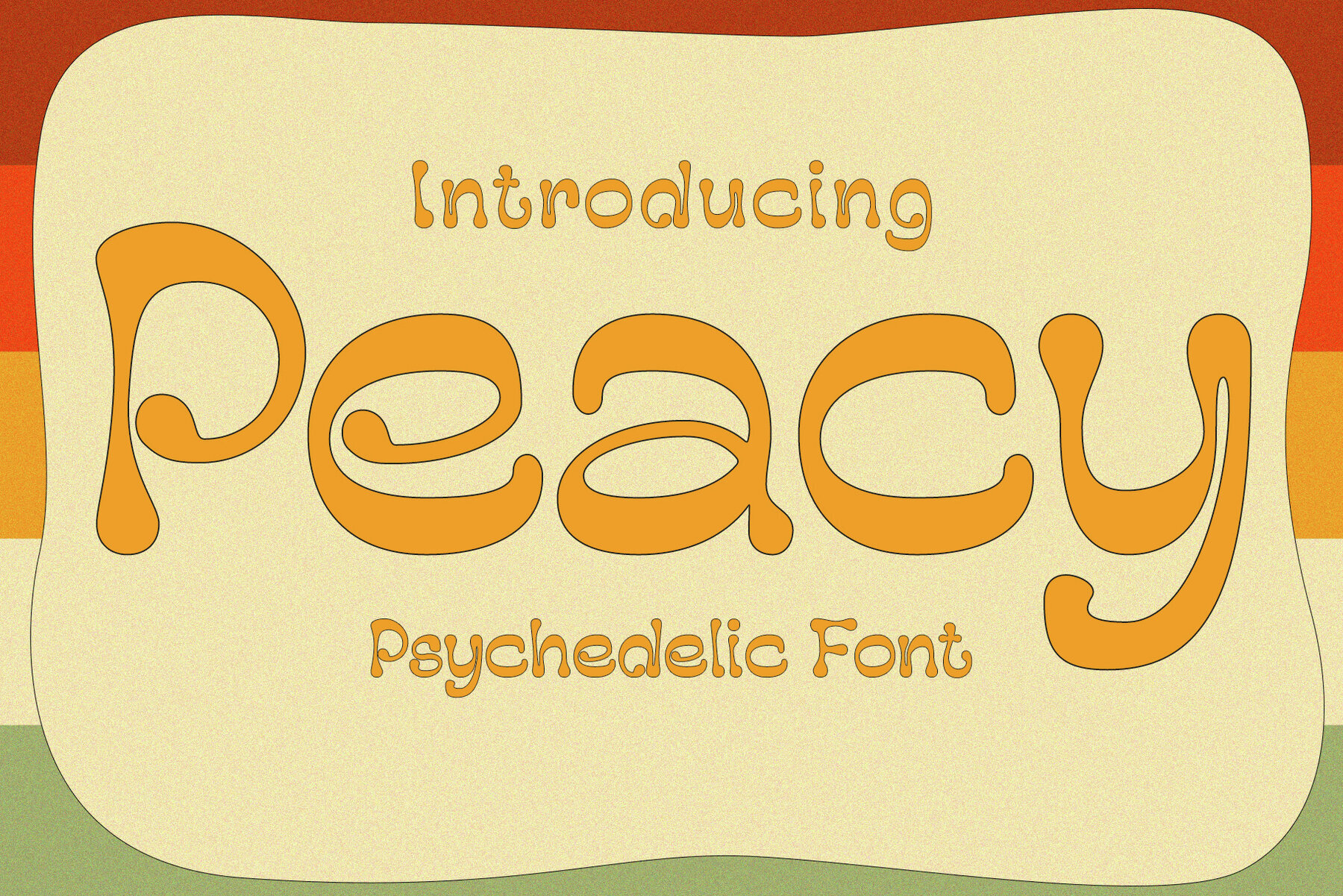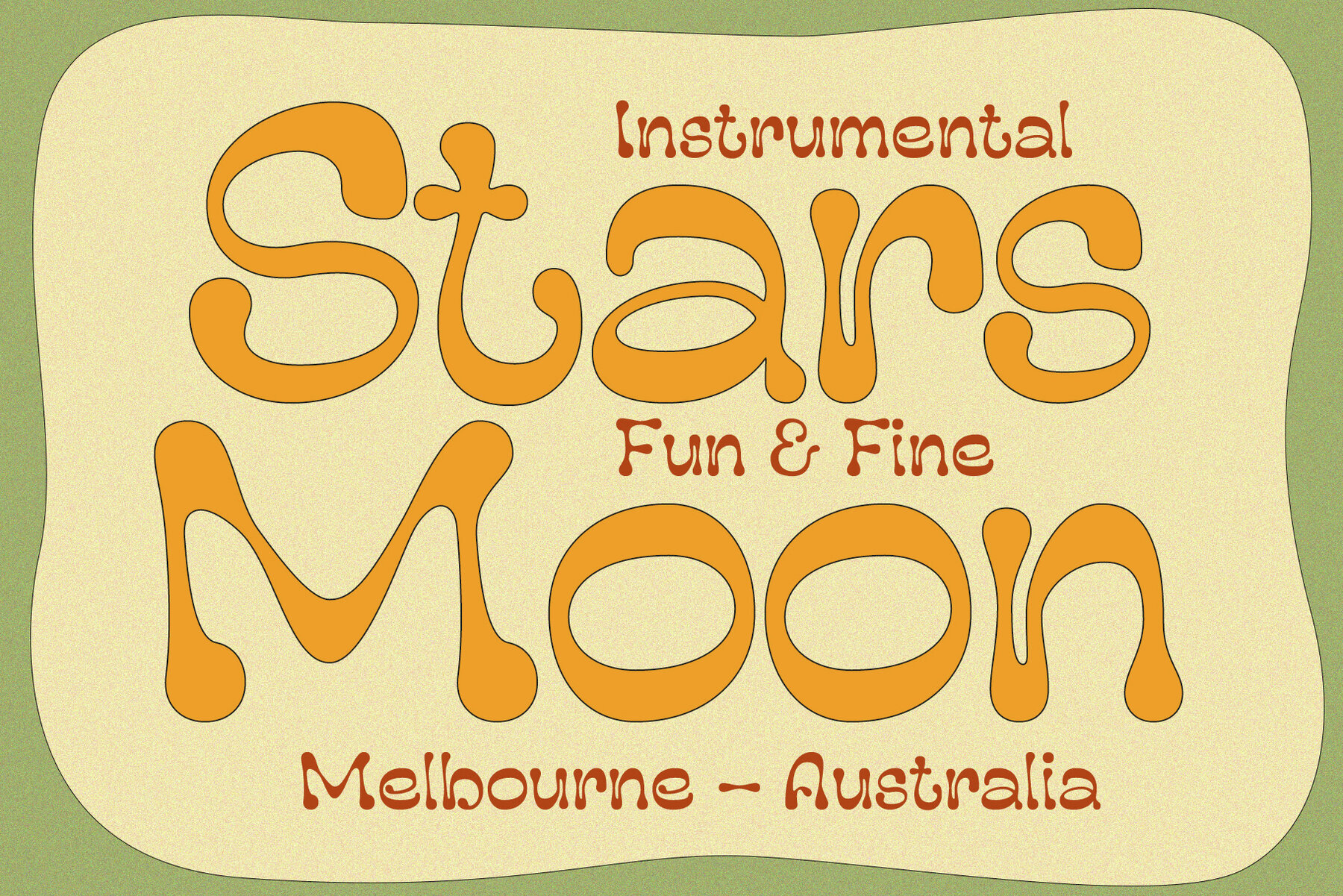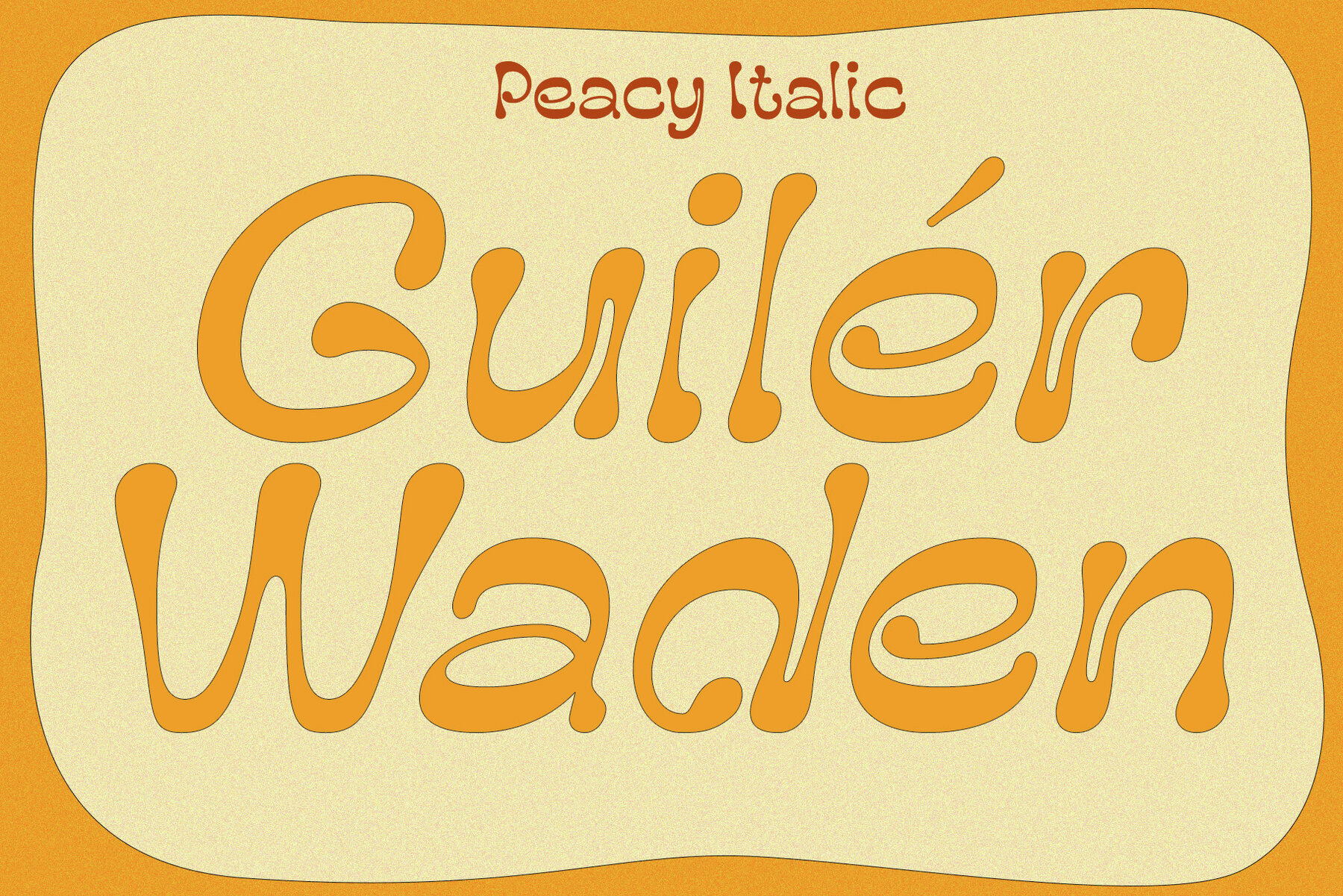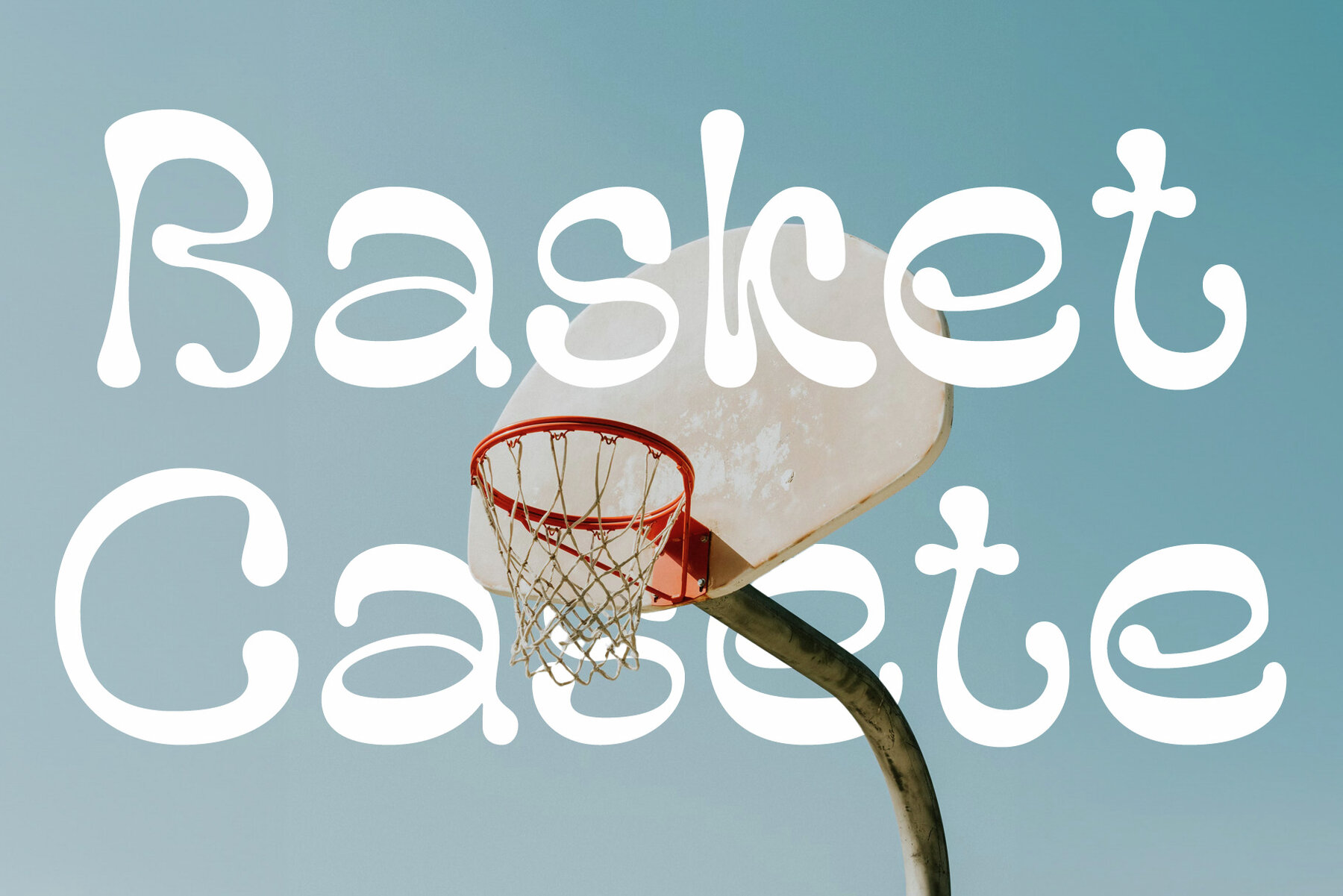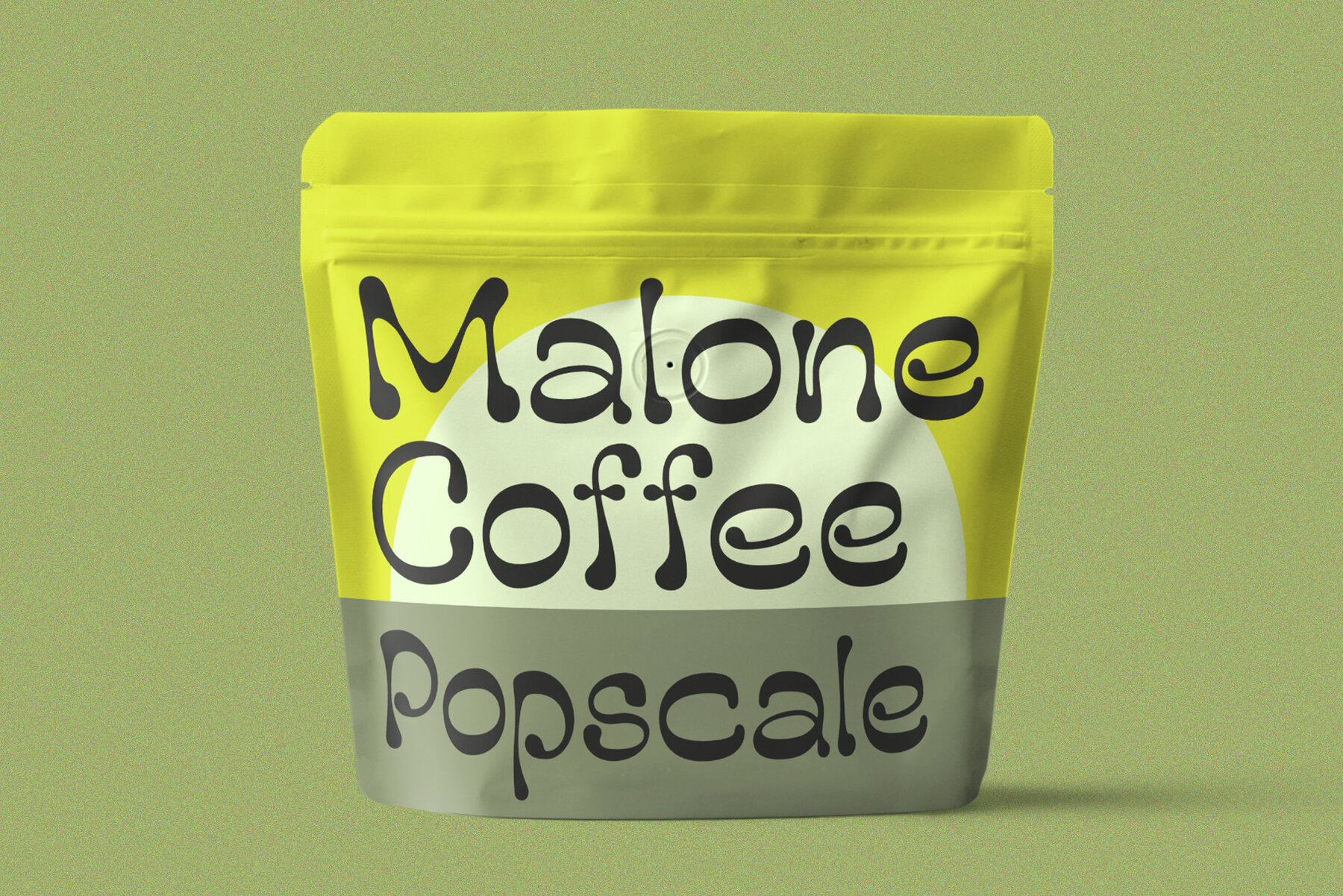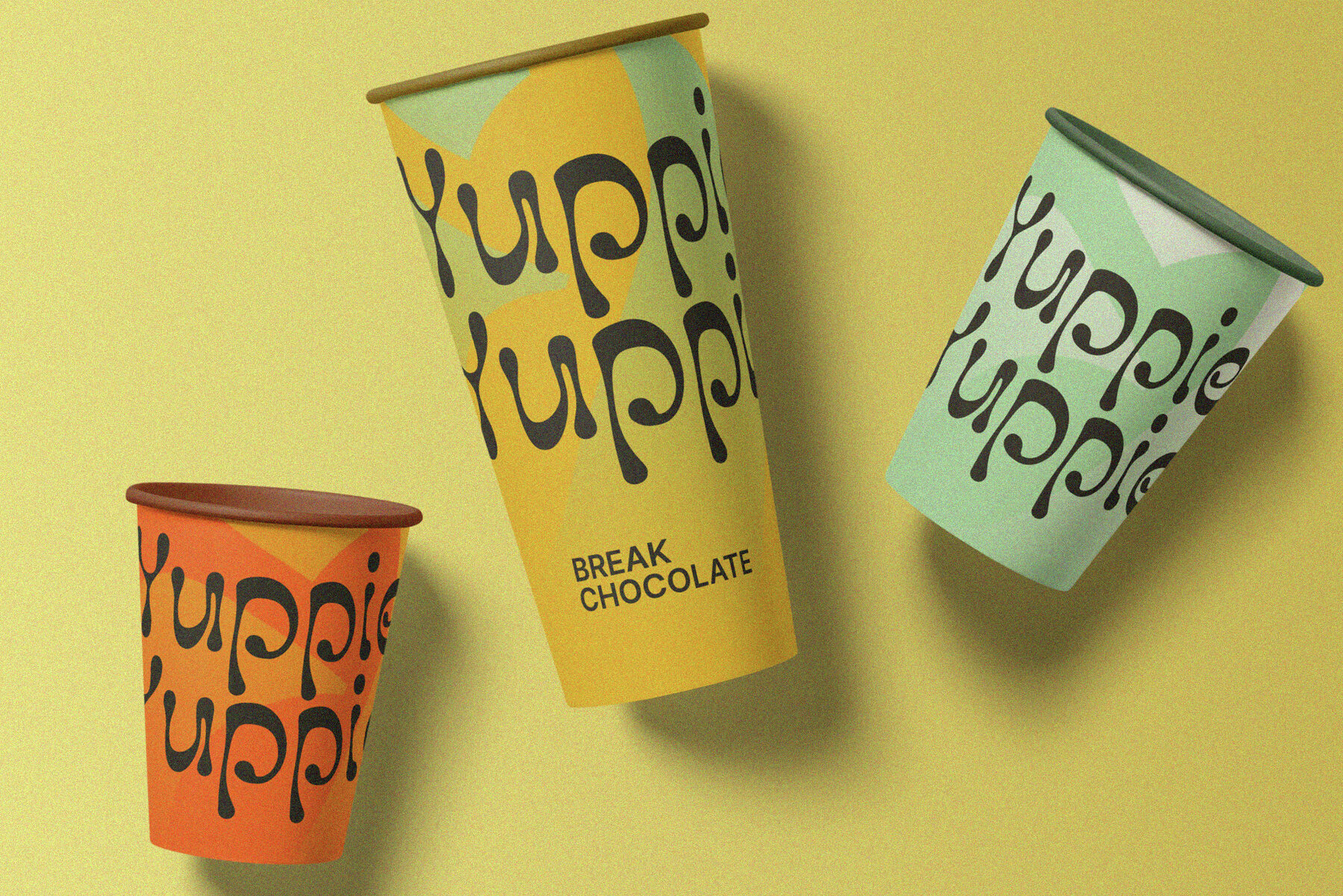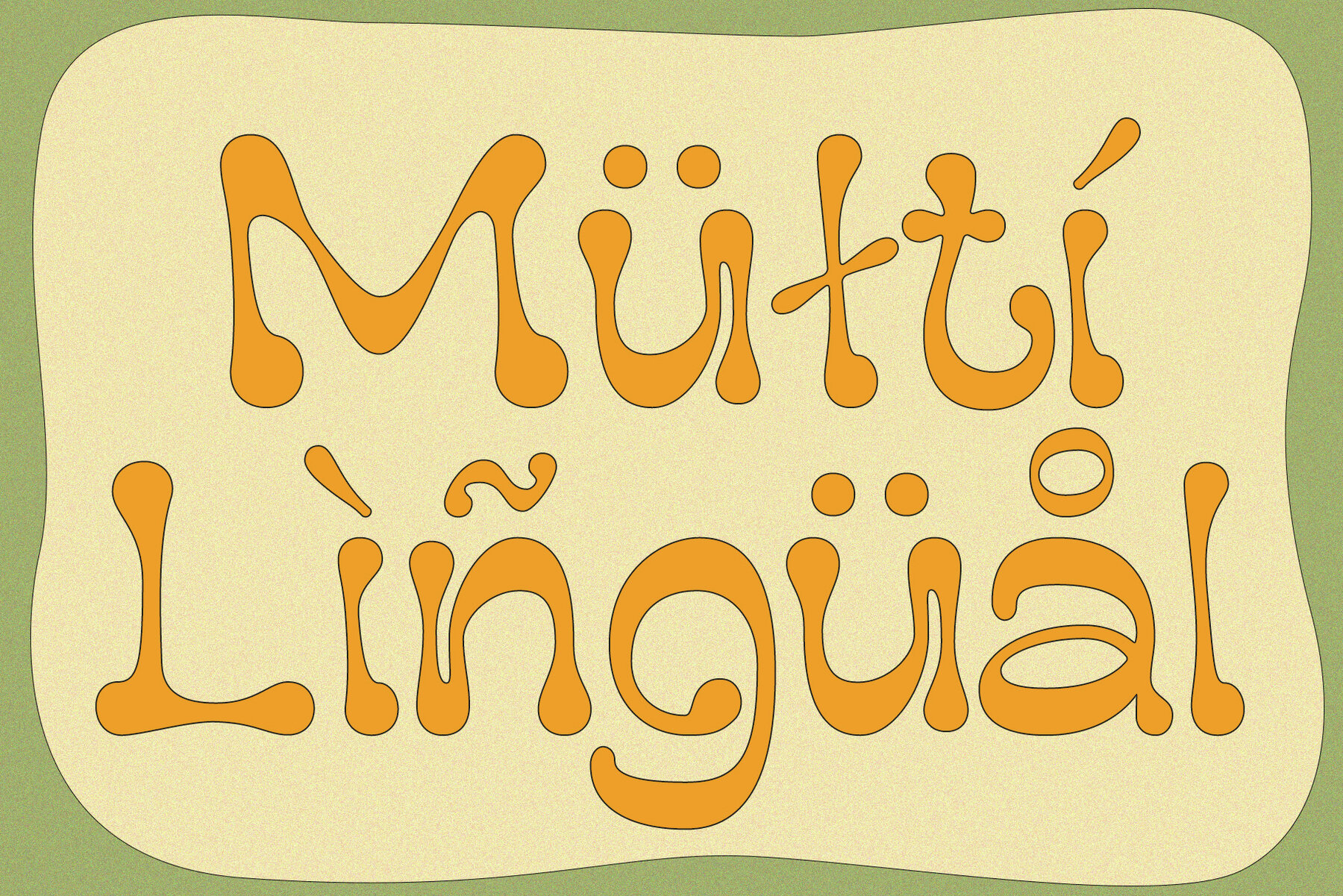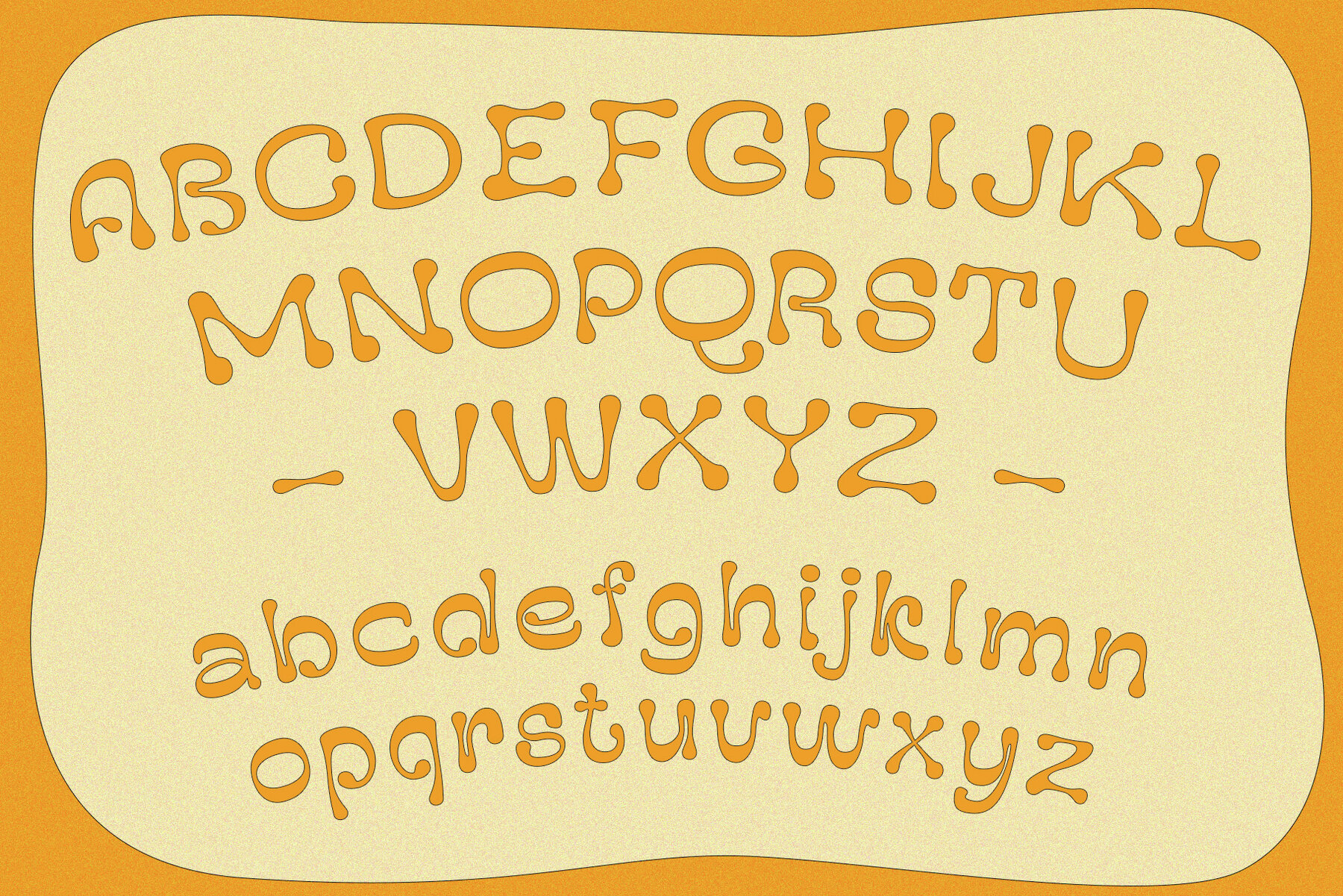
Peacy: Playful and Vibrant Psychedelic Font
Peacy is a psychedelic font that embodies fun and cheerfulness with its lively shapes and vibrant colors. Each letter possesses a unique personality, creating a dynamic visual experience.
Reggae-Inspired Vibes
Infused with the spirit of reggae music, Peacy captures freedom and positivity. Its flowing curves and wavy lines mirror the rhythmic melodies and laid-back vibes of reggae culture.